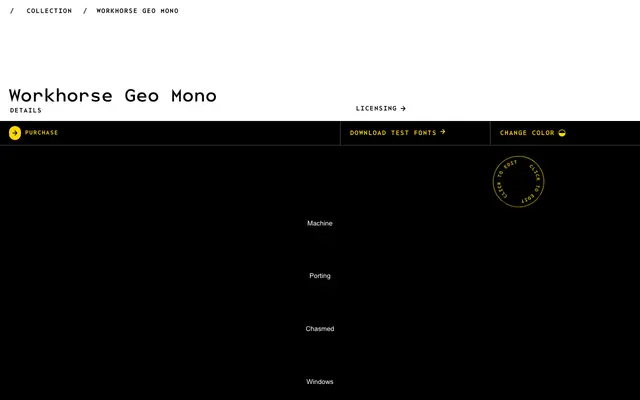
Workhorse Geo Mono
Workhorse Type Foundry · Adrian Kimball · 2024
A geometric sans reimagined as a fixed-width typewriter face, designed to slot into the broader Workhorse Geometric family system.
Built as a companion to Workhorse Geometric, this monospaced face carries the same geometric DNA across 16 styles spanning eight weights from Hairline to Black, each with a matching oblique. A variable font file covers the full weight and italic axes, and nine stylistic sets offer alternate forms for characters including the G, M, Q, lowercase a and the ampersand. It supports over 220 languages with 231 glyphs, and sits alongside Inline, Stencil, Dot and Regular subfamilies in the wider Workhorse system.
A monospaced typeface built on geometric sans-serif principles, conceived explicitly as a typewriter-style companion to Workhorse Geometric. The fixed-width construction and geometric skeleton place it firmly in the mono category.